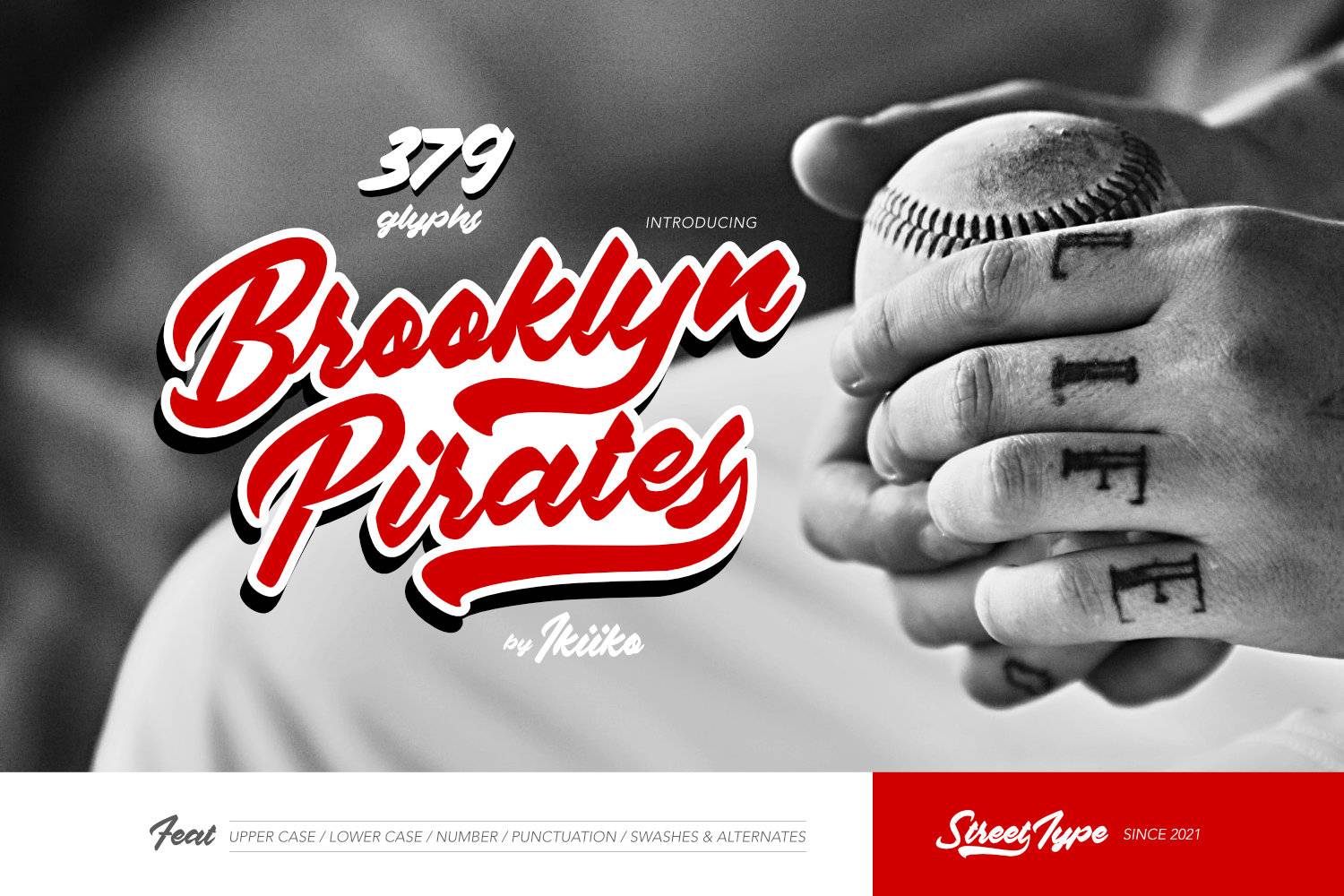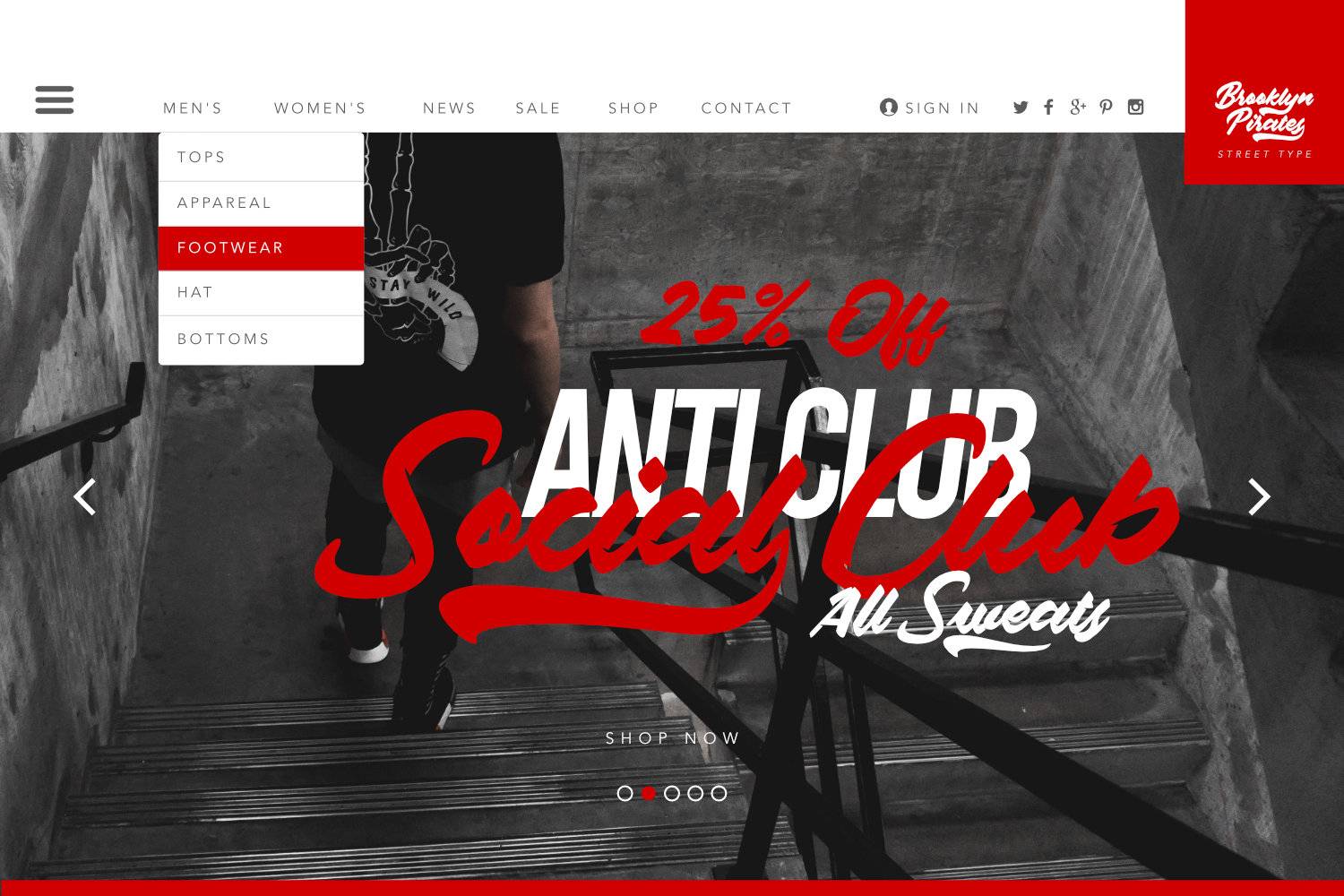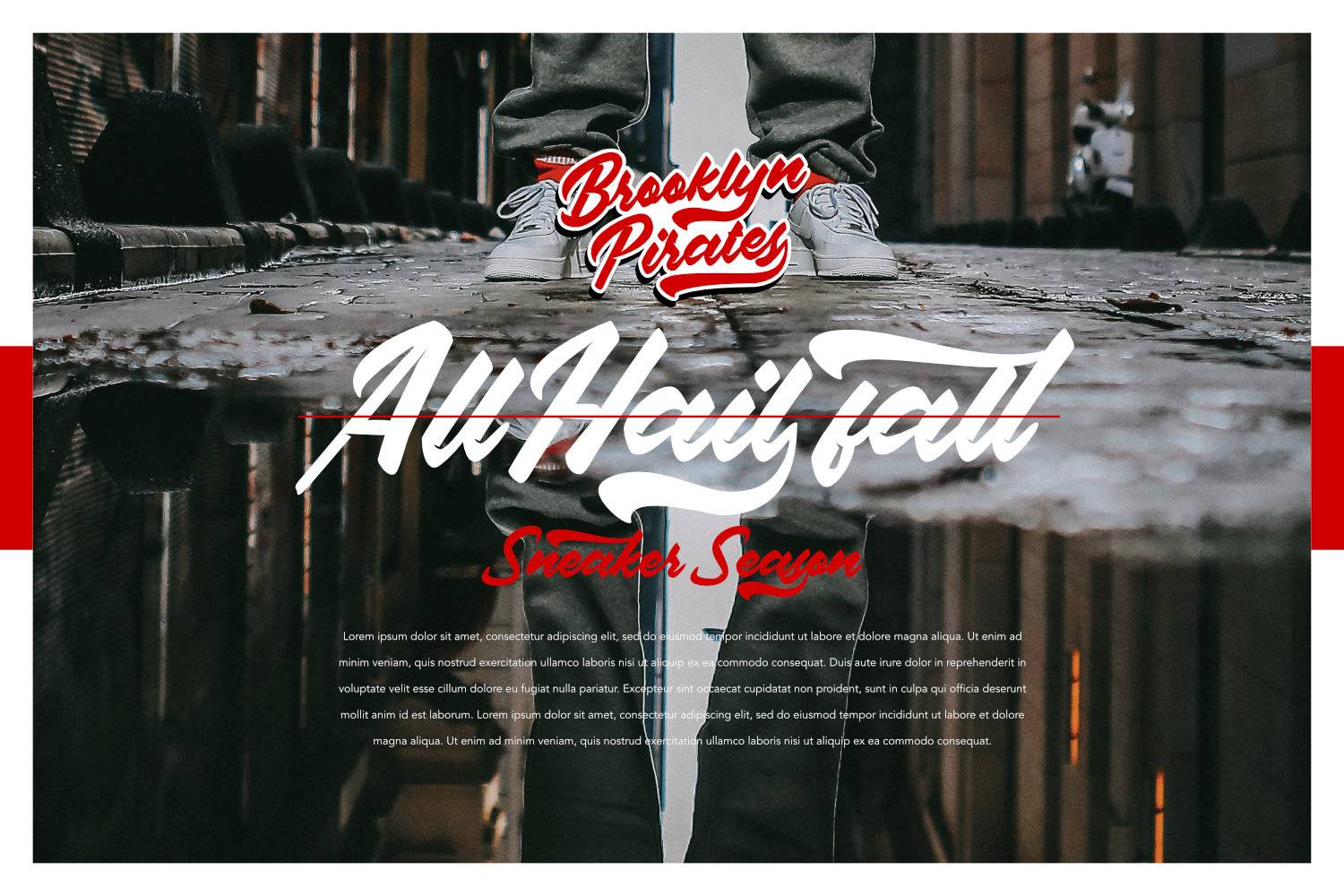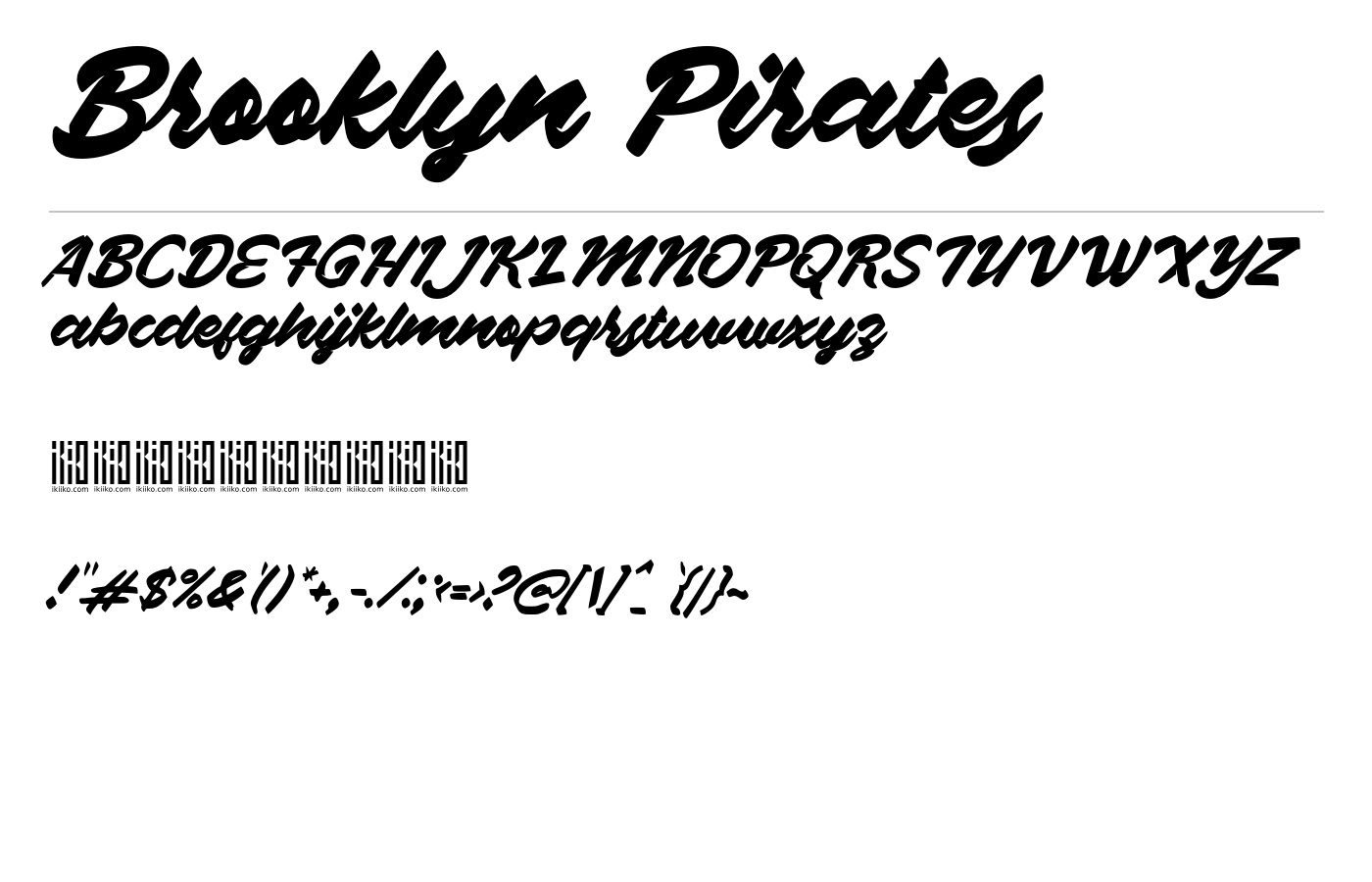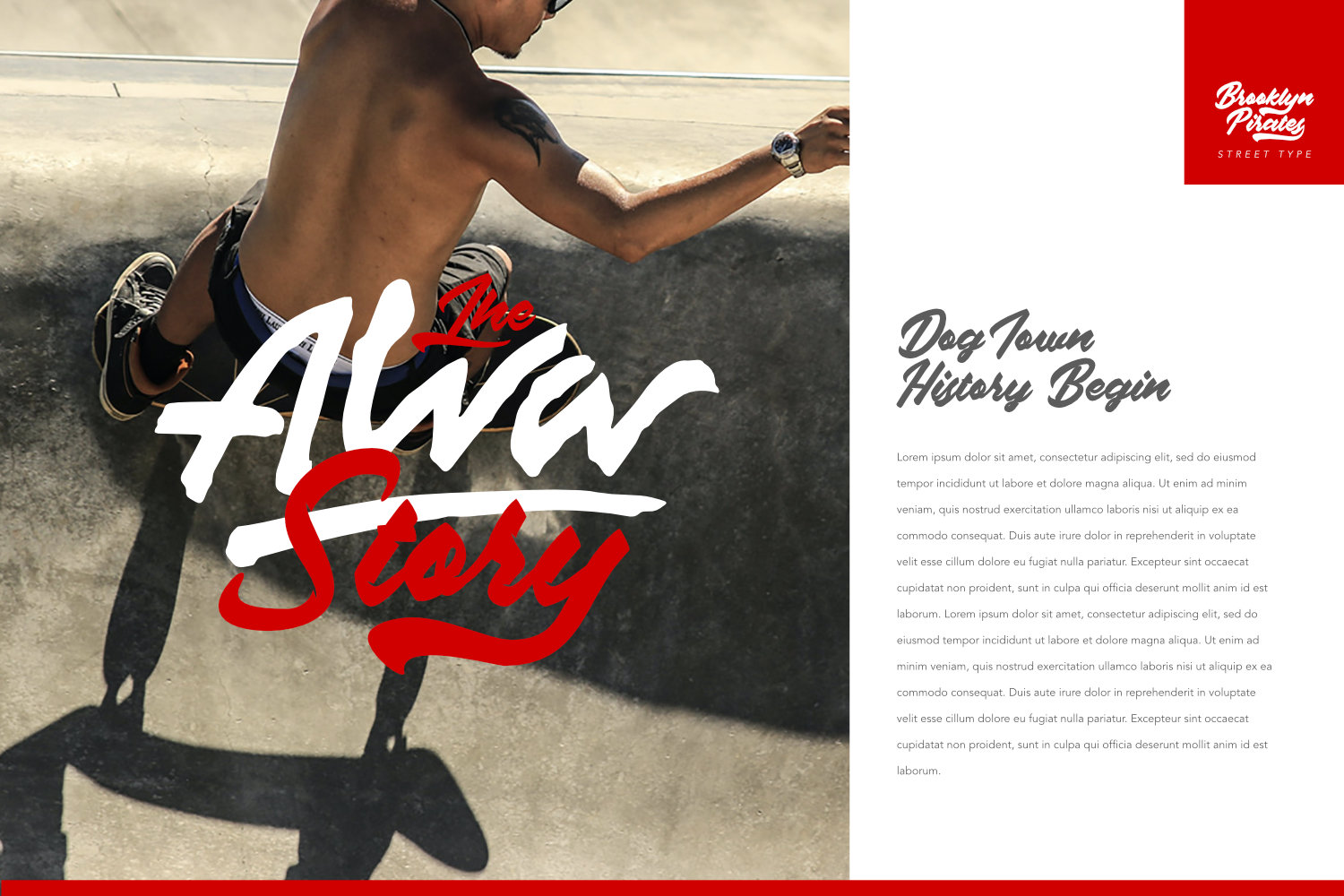
Brooklyn Pirates Free is a bold, energetic script font with a strong brushstroke feel that combines casual flair with clear readability. Its thick, smooth curves and slightly condensed letterforms lend a sense of vintage charm and playful personality, making it ideal for headlines, logos, and creative branding that seeks to convey warmth and creativity. This font works well where a lively, hand-crafted appearance is needed to grab attention and express a spirited, approachable vibe.
Brooklyn Pirates Fre Font
About Brooklyn Pirates Fre Font